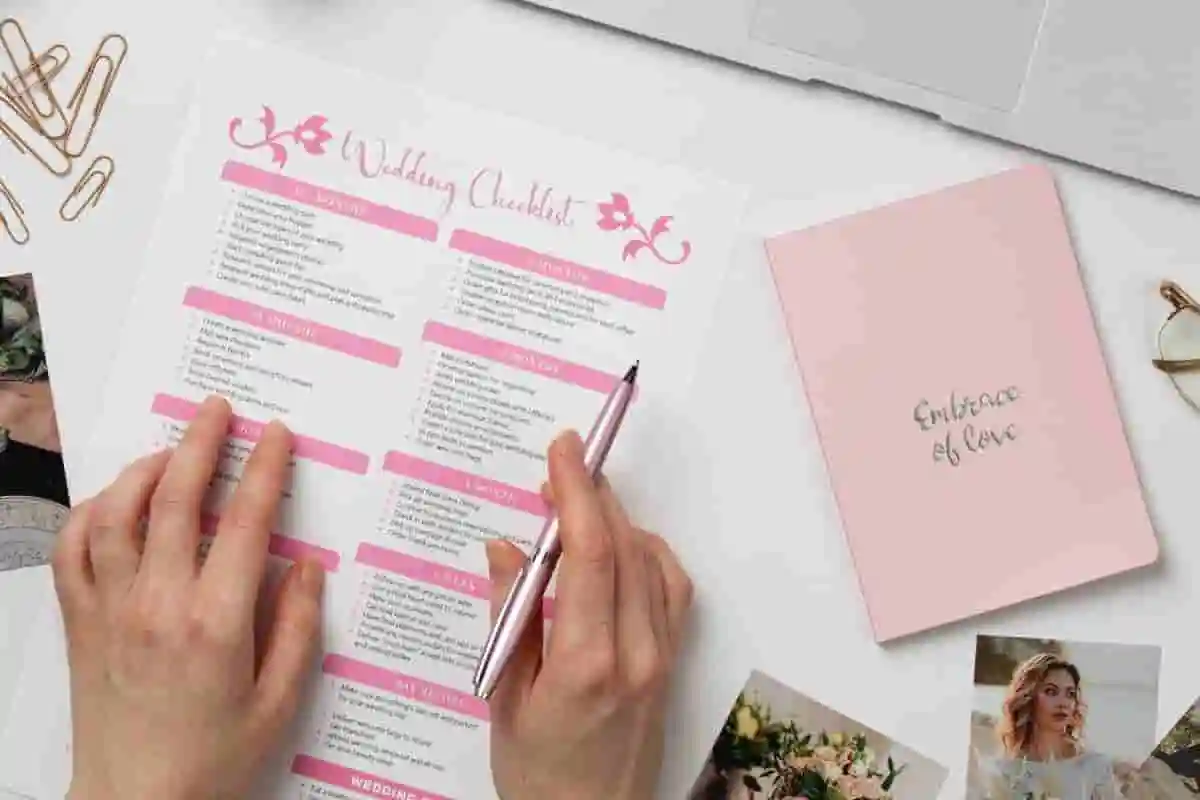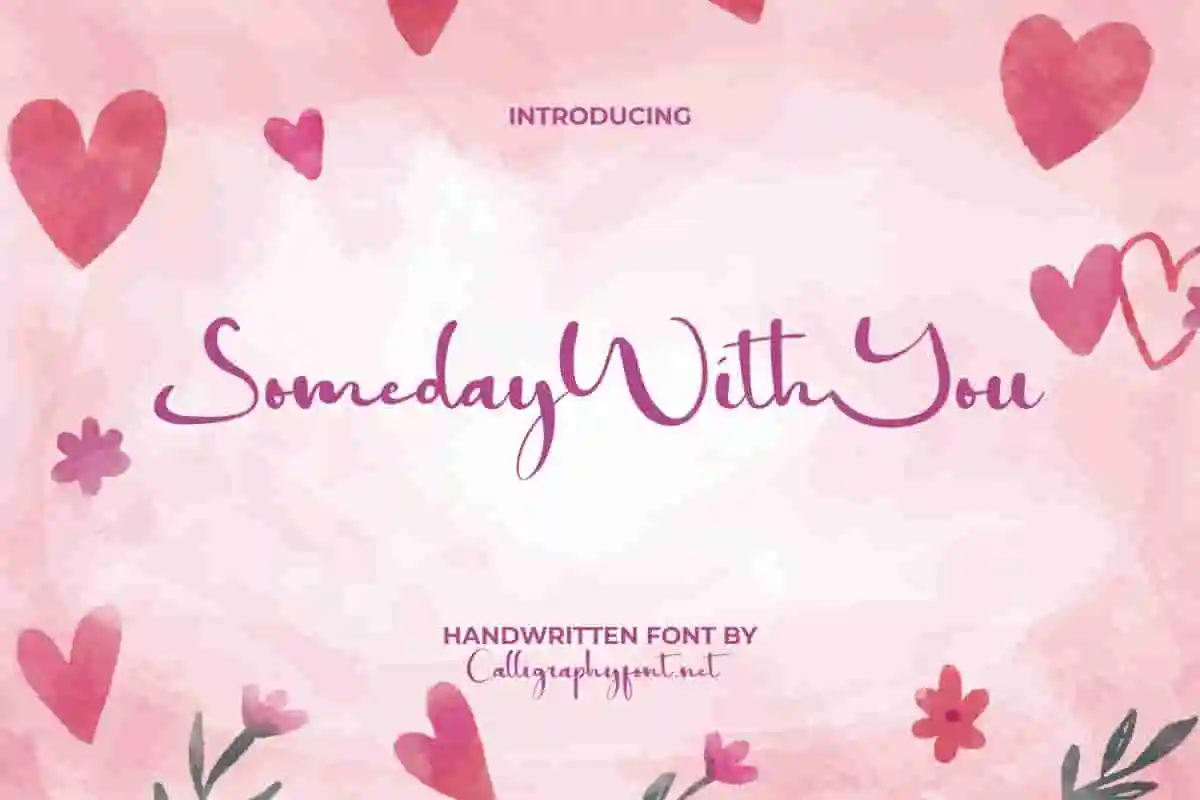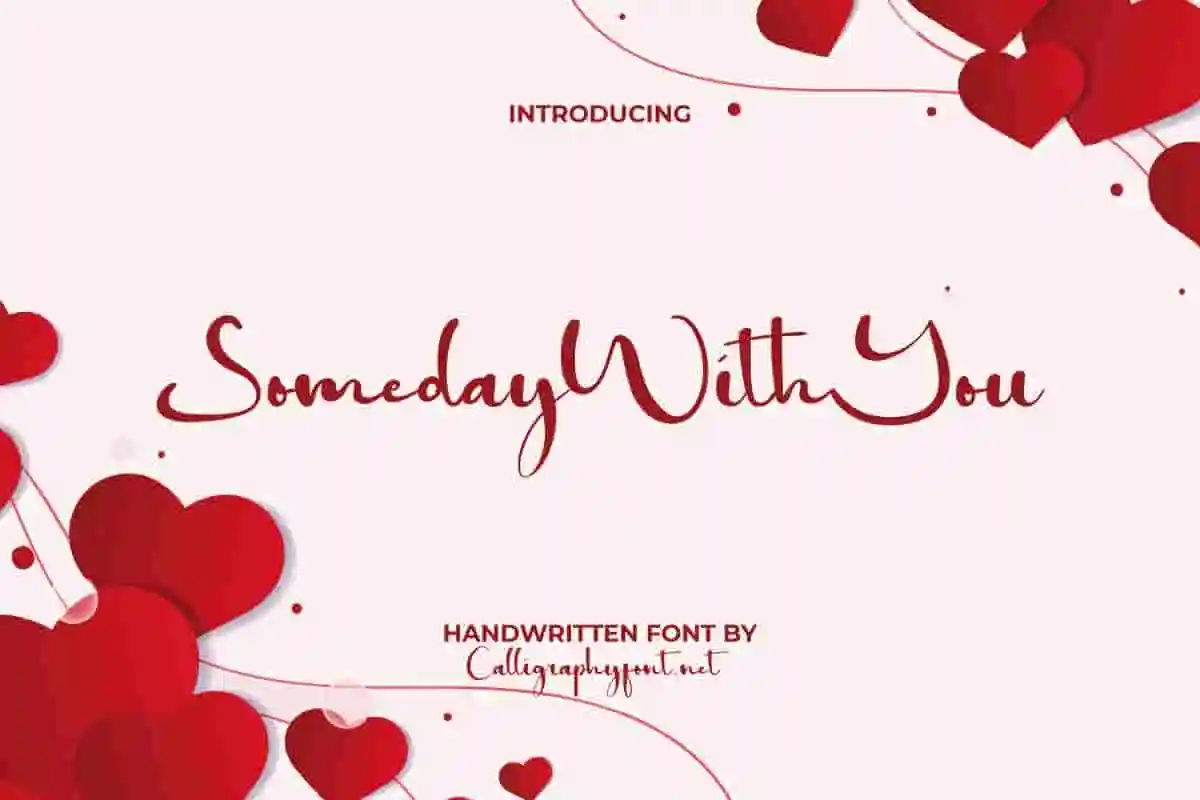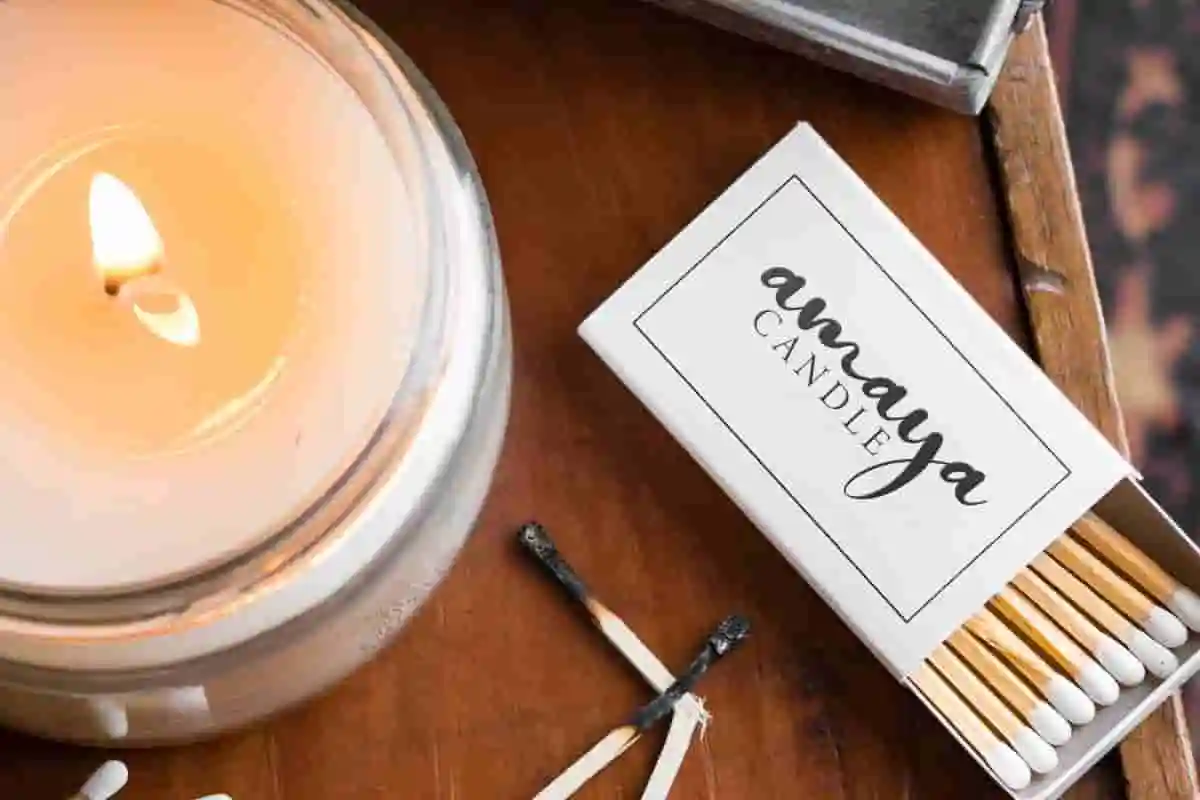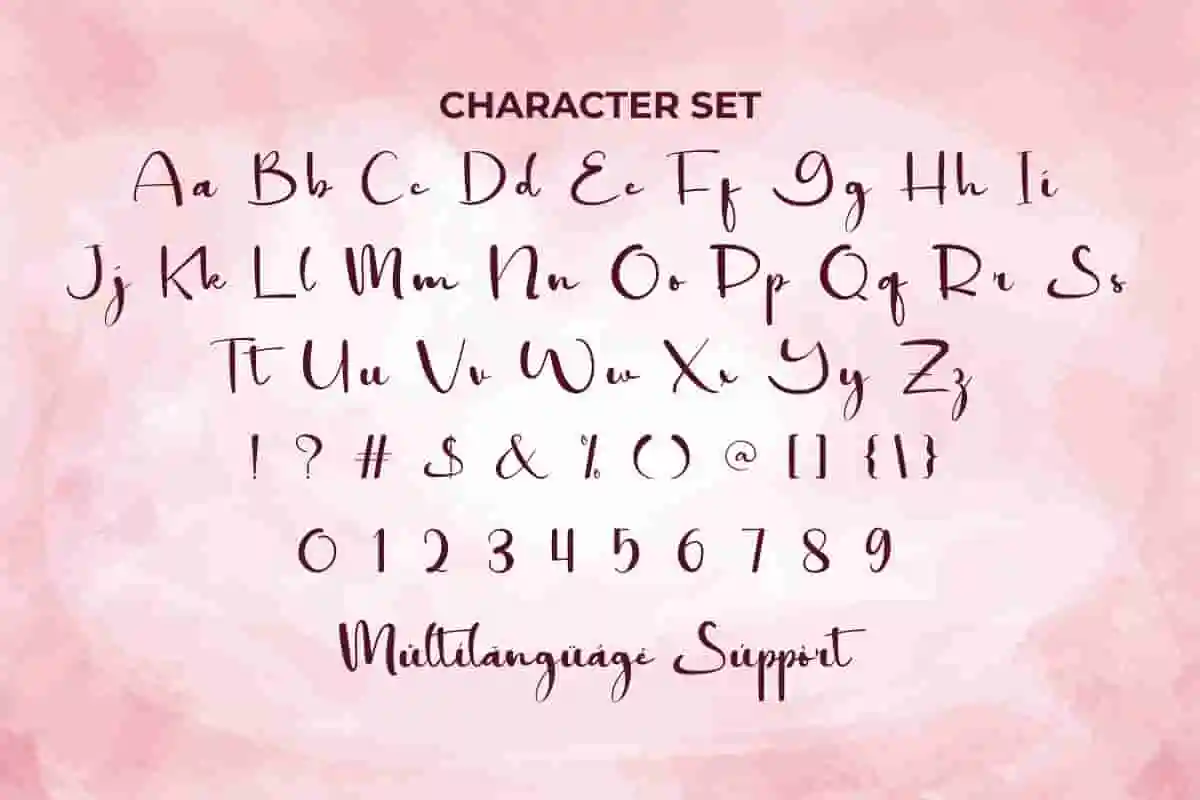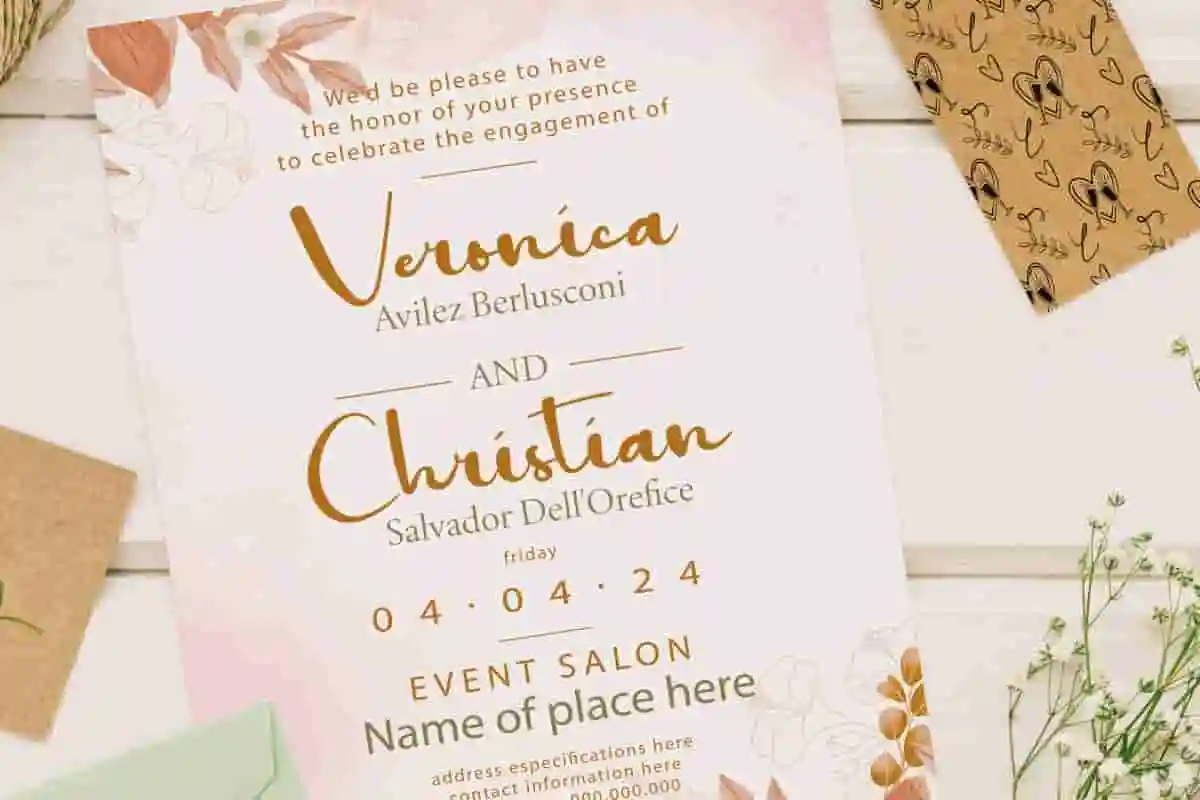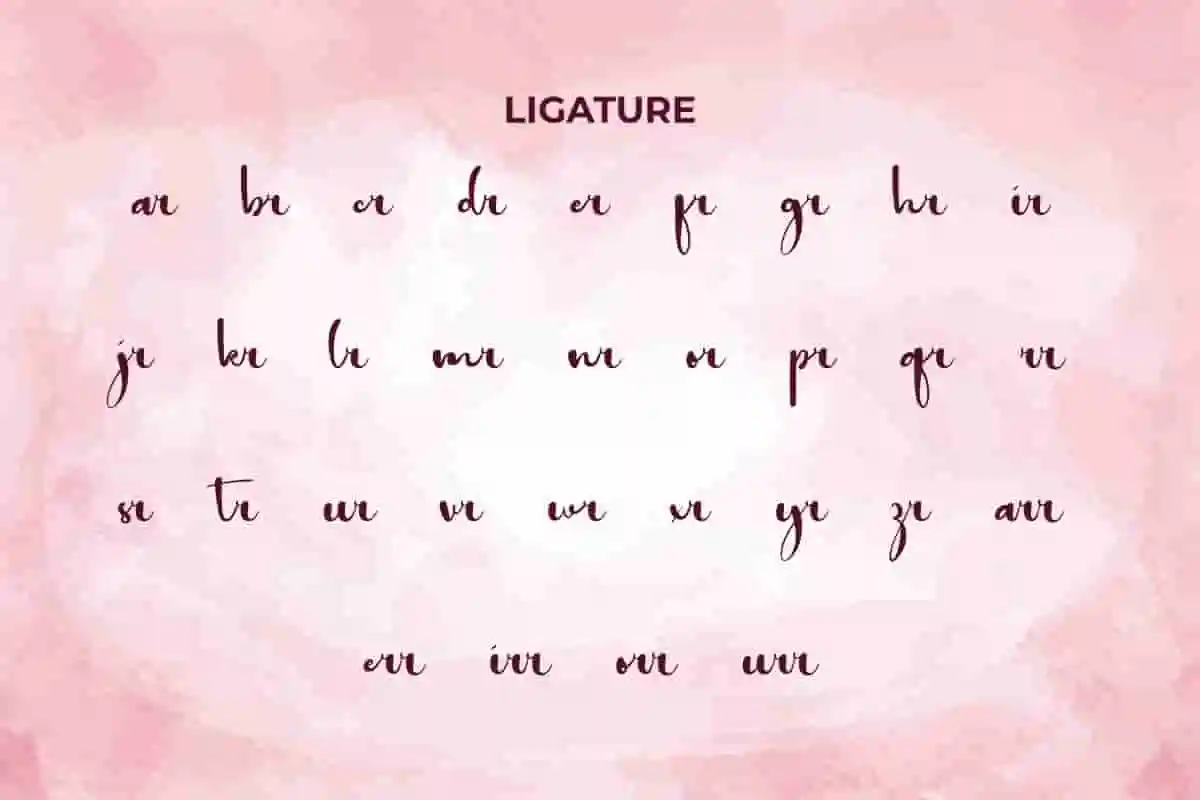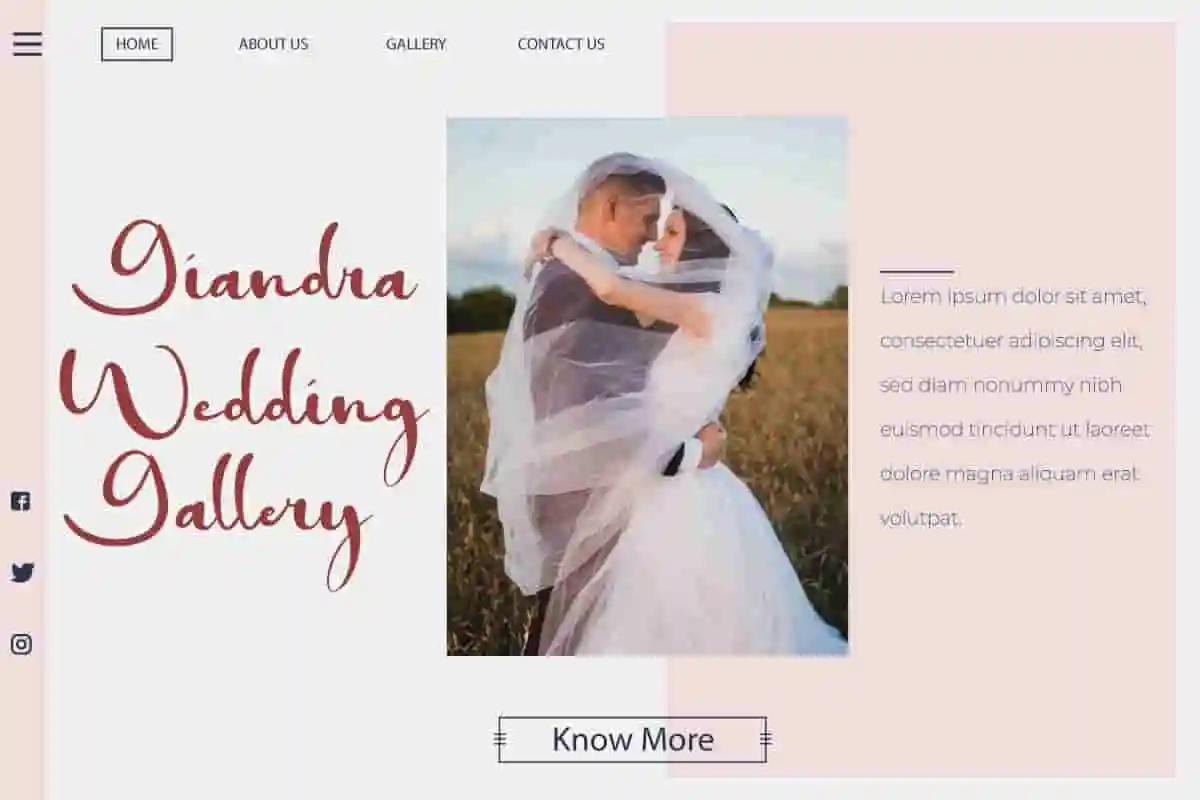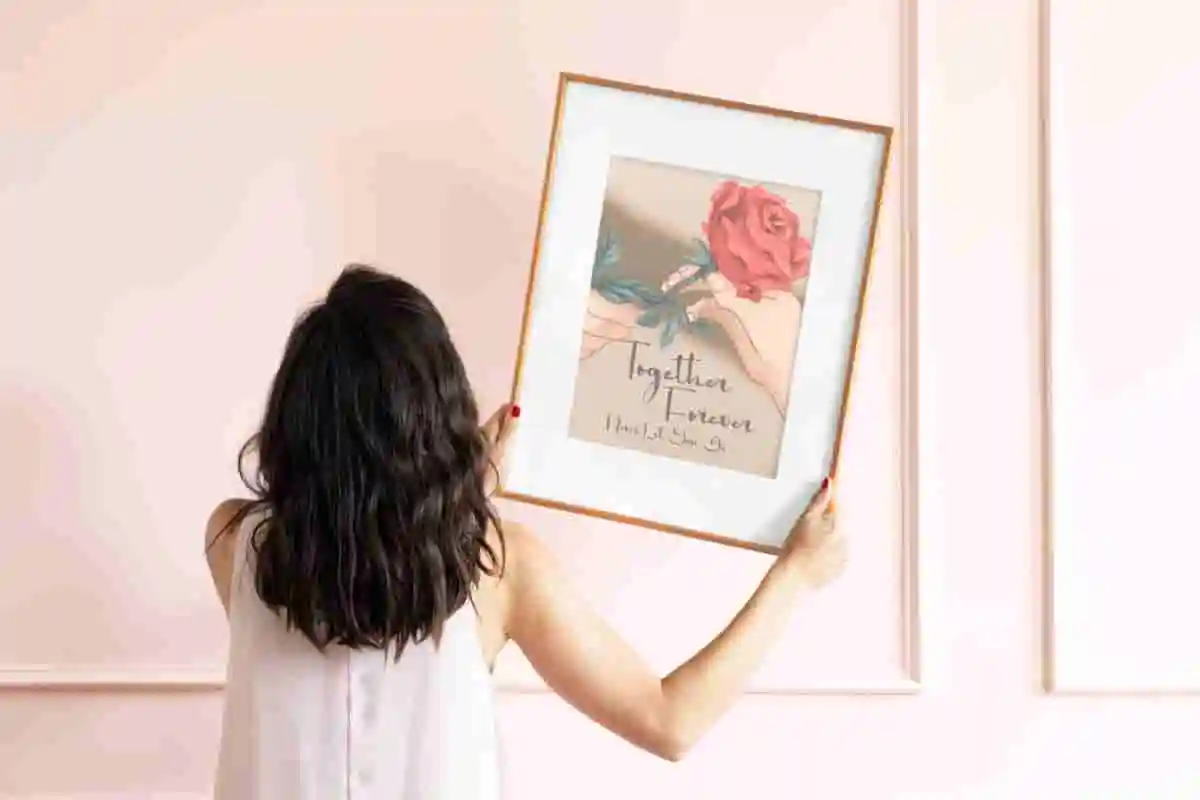
Someday With You Font
Someday With You Font is a beautiful a loving handwriting font made to perfection and a great choice for your work that wants to add a personal touch. It will be versatile for brand logos, social media posts, etc.
Someday With You Font is beautiful a loving handwriting font made to perfection and a great choice for your work that wants to add a personal touch. Carefully crafted and full of love inside. It offers a touch of refinement and personality to every creation. Feel the difference and make this font work in whatever your creative design, such as blogs, brand logo, brochure, business cards, cards design, headers, headline, invitations, labels, product packaging, quotes, signage, stationery, sticker, title, watermarks, website and many others.
Bring elegance and warmth to your creative projects with Someday With You Handwriting Font, a modern calligraphy typeface crafted to capture romance, beauty, and sophistication in every letter. This font is designed with smooth curves, stylish swashes, and a graceful flow that makes your text feel personal and expressive.
Whether you are working on wedding invitations, love letters, greeting cards, branding, product packaging, or social media content, Someday With You Handwriting Font delivers a heartfelt and professional touch. Its hand-lettered style blends modern trends with timeless elegance, making it the perfect choice for designers who want their work to stand out with authenticity and charm.
One of the strengths of Someday With You Handwriting Font lies in its versatility. It includes uppercase, lowercase, numerals, punctuation, and beautiful ligatures that give you endless creative options. From bold headlines to delicate details, this font adapts seamlessly to any design project.
Someday With You Handwriting Font has smooth and neat letterforms at various angles. This makes it versatile and suitable for both formal and casual contexts. It naturally exudes its own aura of elegance and charm, making it the perfect choice for various projects, such as author, beauty clinic, cosmetic, graphic design, handicraft, photography, printing, publishing, skincare, spa salon, wedding organizer and other things.
Someday With You Handwriting Font comes with a complete set of Uppercase and Lowercase Basic Characters, Number, a large range of Punctuation, Symbol, and a variety of Ligatures to ensure connectivity between characters that are perfectly bonded and seamless together. It has included multilingual character support ready to be used on Windows or Mac machines with a simple installation. It’s tested to work well in the Adobe Apps (Illustrator, Adobe InDesign, Adobe Photoshop) CorelDraw, and others. PUA Encode Characters means you can access all the characters easily – Fully accessible without additional design software.